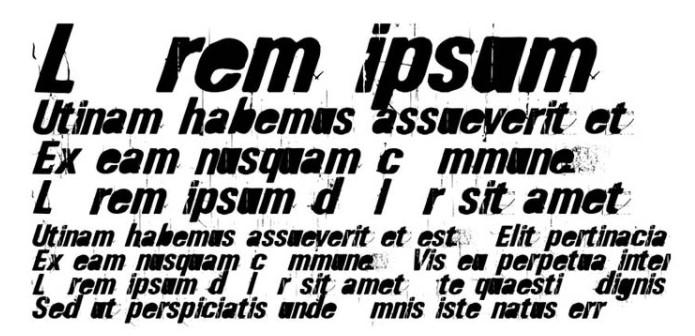
We are offering the Kabtv Font, a horror typeface known for its amazing texture. The designer has worked hard to create a unique design for this font.
The reason this typeface provides a distorted look is that the texture of this typeface is designed using thick strokes. This typeface provides the ink texture when used with murray hill font.
This typeface is useful in all designs where unique styling and new designs required. This is the reason that this typeface becomes famous in a small period of time. In this typeface, you will find only a single weight that will have all the OpenType features that can be used with the combination of glamourist font and this contains 55 different glyphs.